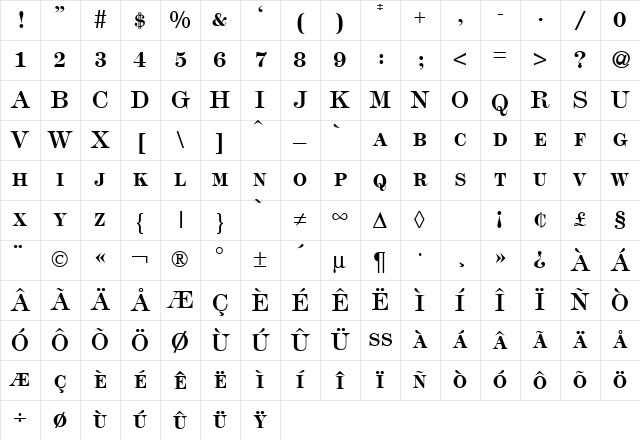
Modern438Smc Bold
Modern438Smc Bold Family
Design Context for Modern438Smc
Modern438Smc is a composed and adaptable typeface that performs quietly and consistently across a wide range of design contexts. Its bold stroke weight gives it real presence on the page.
Pro Tip: Use Modern438Smc in both headline and body roles to test its range before committing to a single application.